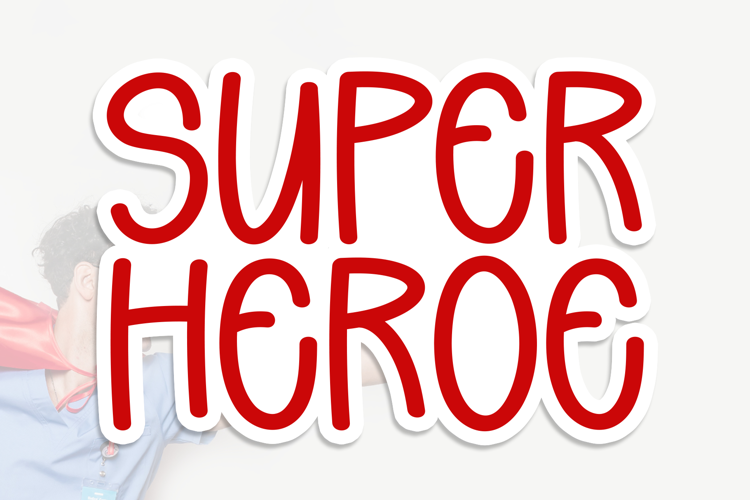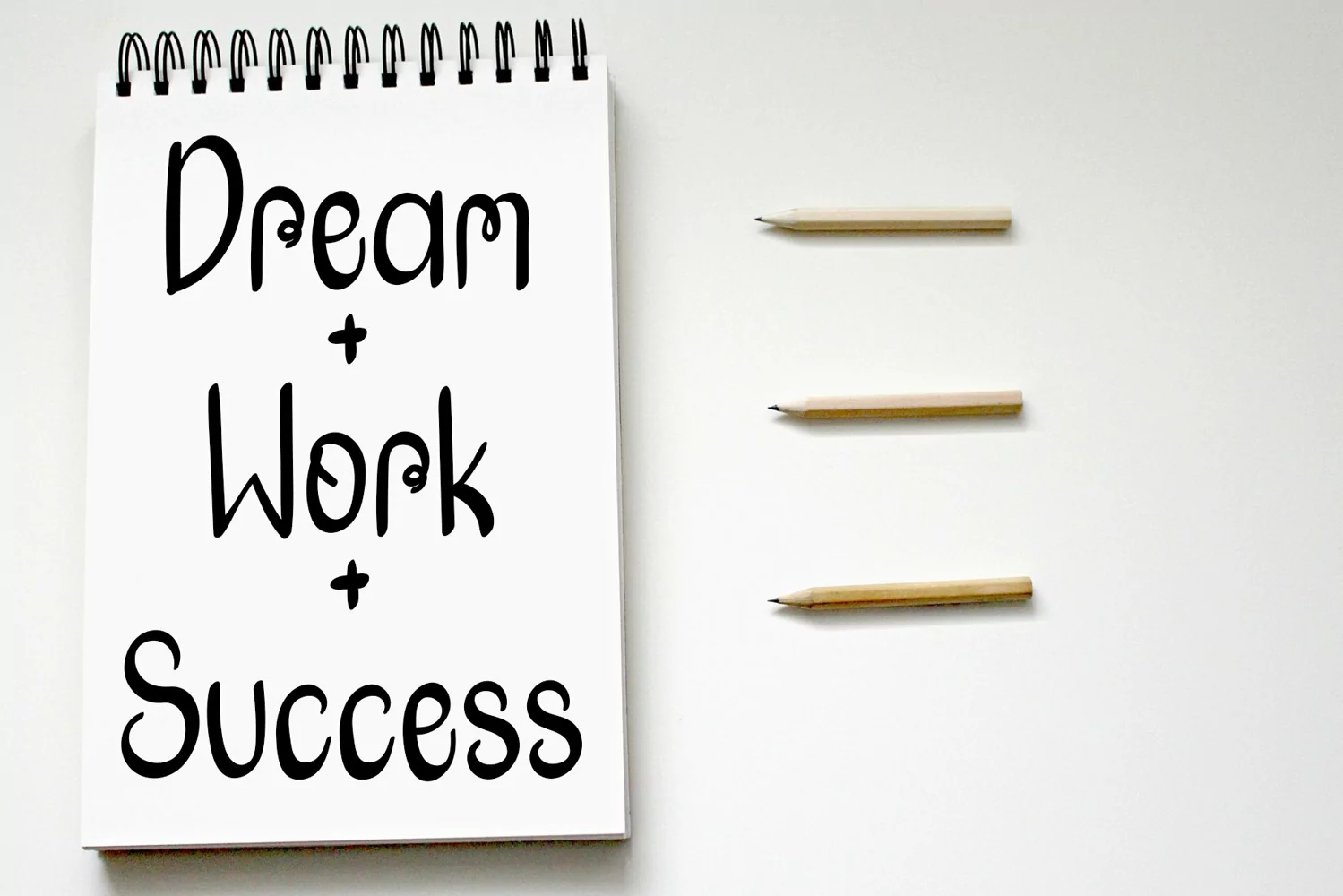
Strong Woman
Introducing, this is our newest product, we call this product Strong Woman,
It looks amazing with sweet touches and beautiful curves in each letter. Strong Woman fonts are perfect for: wedding invitations, fashion magazines, logos, signatures, photography, watermarks, wall displays, social media,